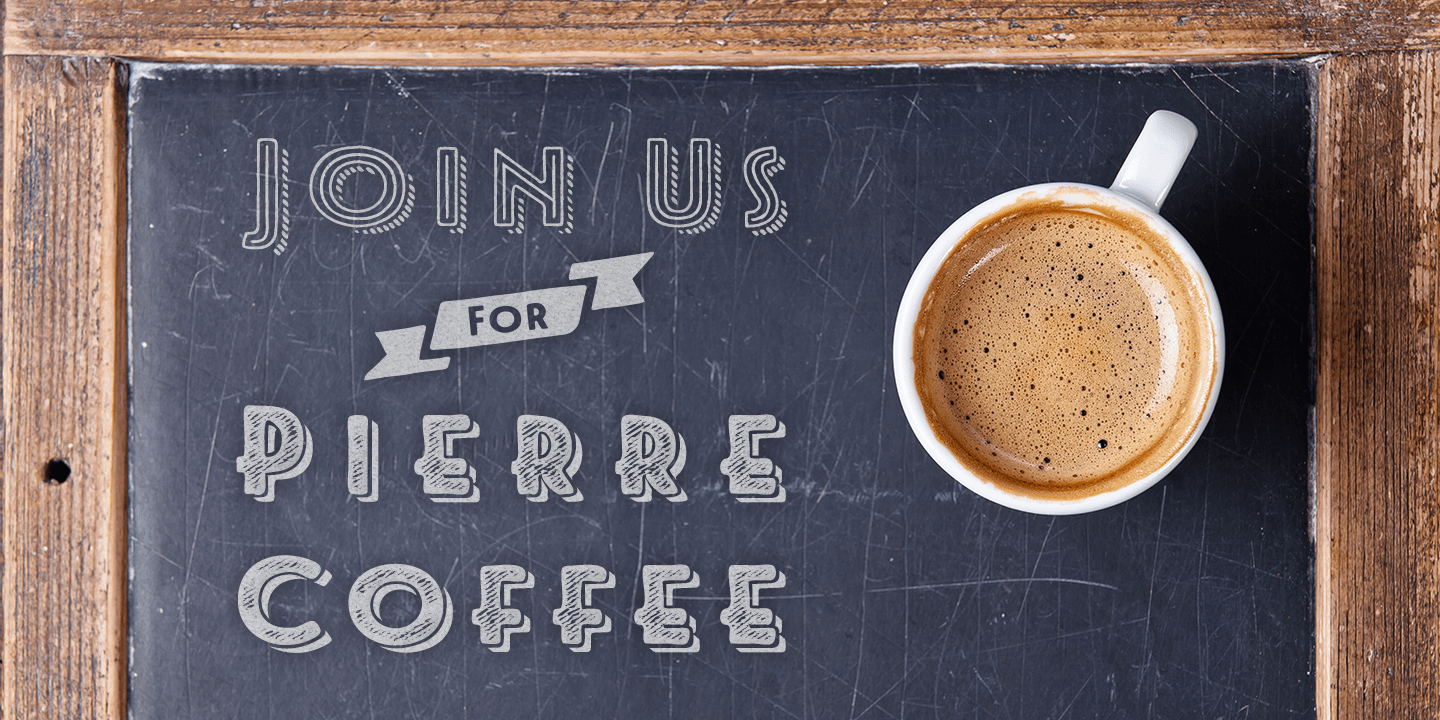
Le Havre Rough
Font Family by Insigne
"Le Havre Rough. It's high-resolution, hand-crafted letterpress to the core. Based on insigne's popular Le Havre typeface, this new heat-treated, weathered face of all caps joins the realism and appeal of the top-quality Le Havre family.
Rough's eroded, printed look is extremely customizable, offering eleven distressed choices that appear fantastic even at large output sizes. Go ahead. Try it on, say, a billboard. Maybe even Times Square. The font includes hand-printed texture and distinctive shadow choices, too. Options include three inline versions, two shadow layers, and a clean primary version. Combine and match the options easily as you need, layering normal and shadow variations to alter appearance and texture. You can activate Art Deco alternates by using OpenType contextual alternates.
Rough has an extra-large character set for many languages. Additionally, the typeface offers 62 extra ornaments like arrows, emblems, numbers & lines. Use its full texture and grit to capture the classic, genuine print feel that you need in your project.